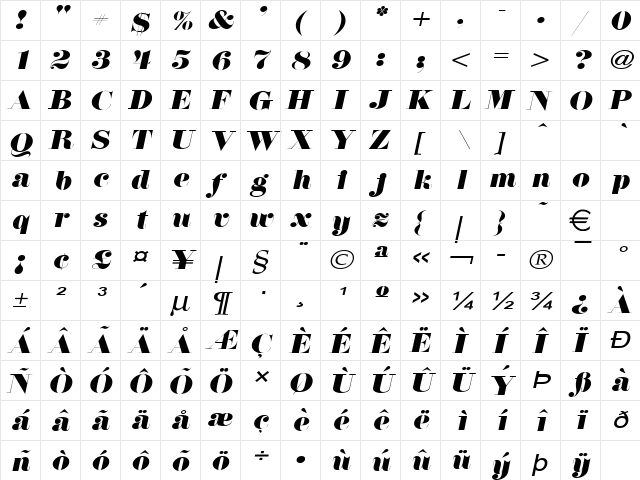
FloralWide Italic
Design Context for FloralWide Typeface
FloralWide takes a measured approach to typography — its balanced proportions and neutral character make it a reliable workhorse for both digital and print work. Its italic angle brings a sense of urgency and motion to the letterforms.